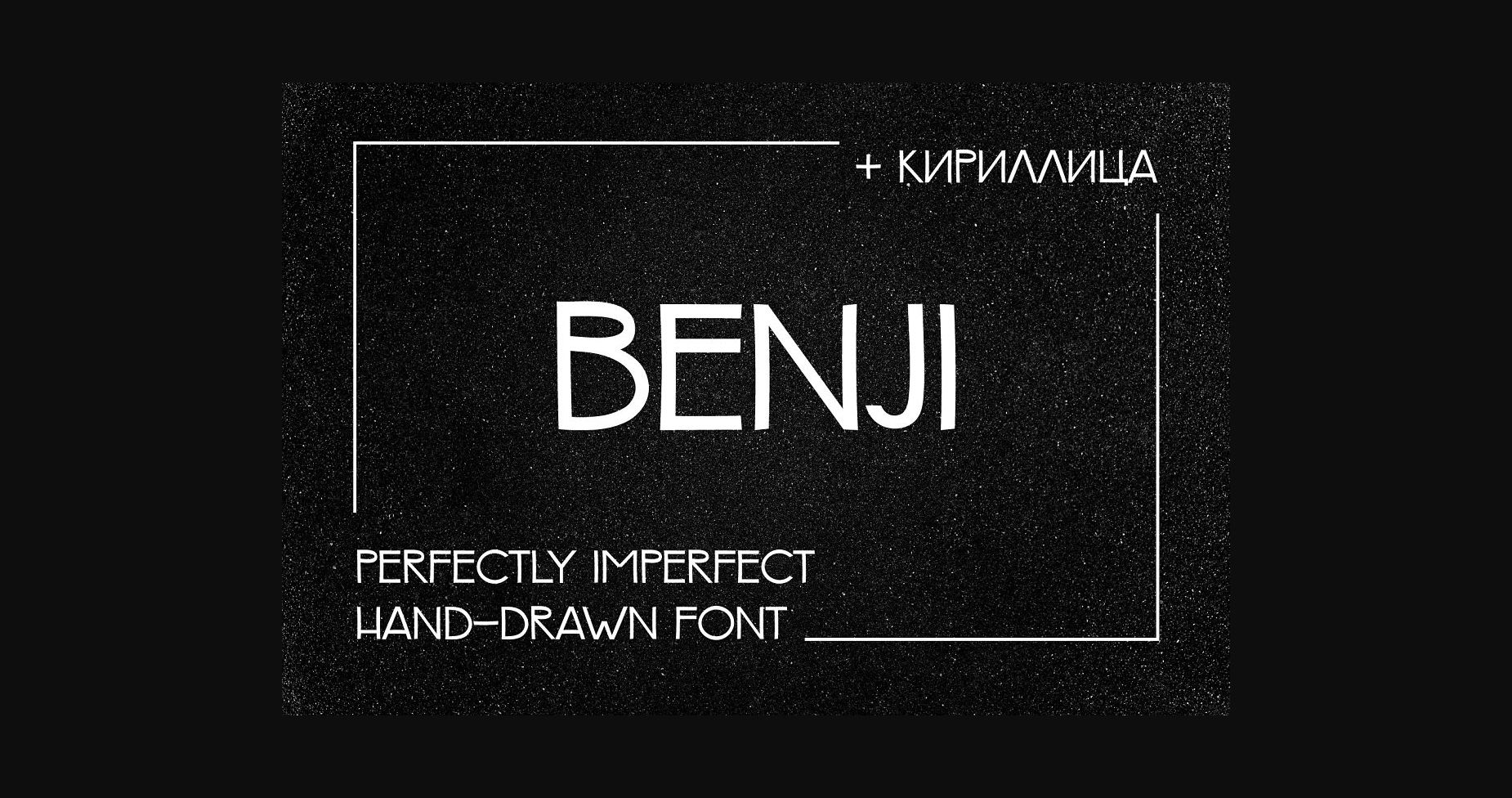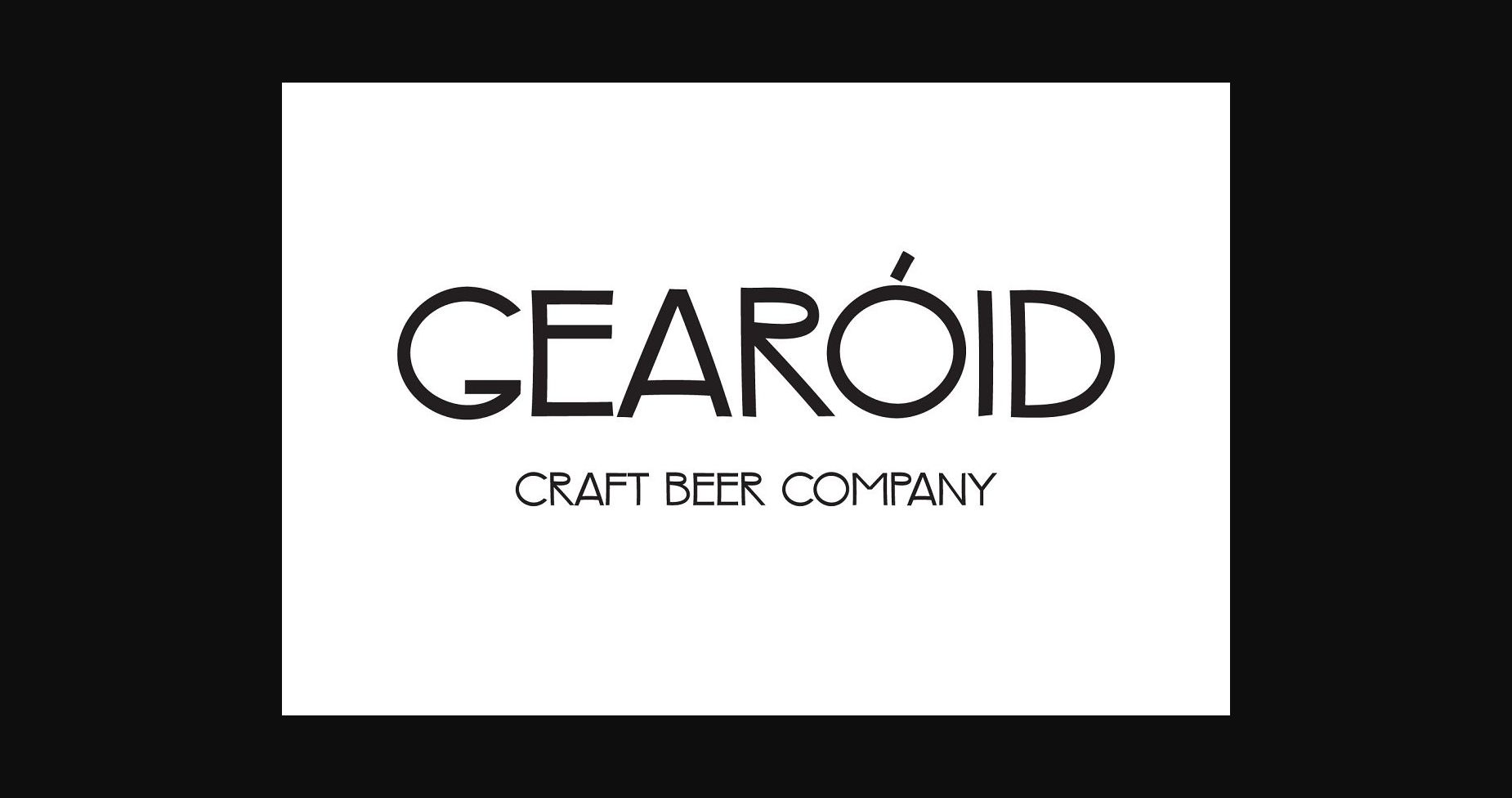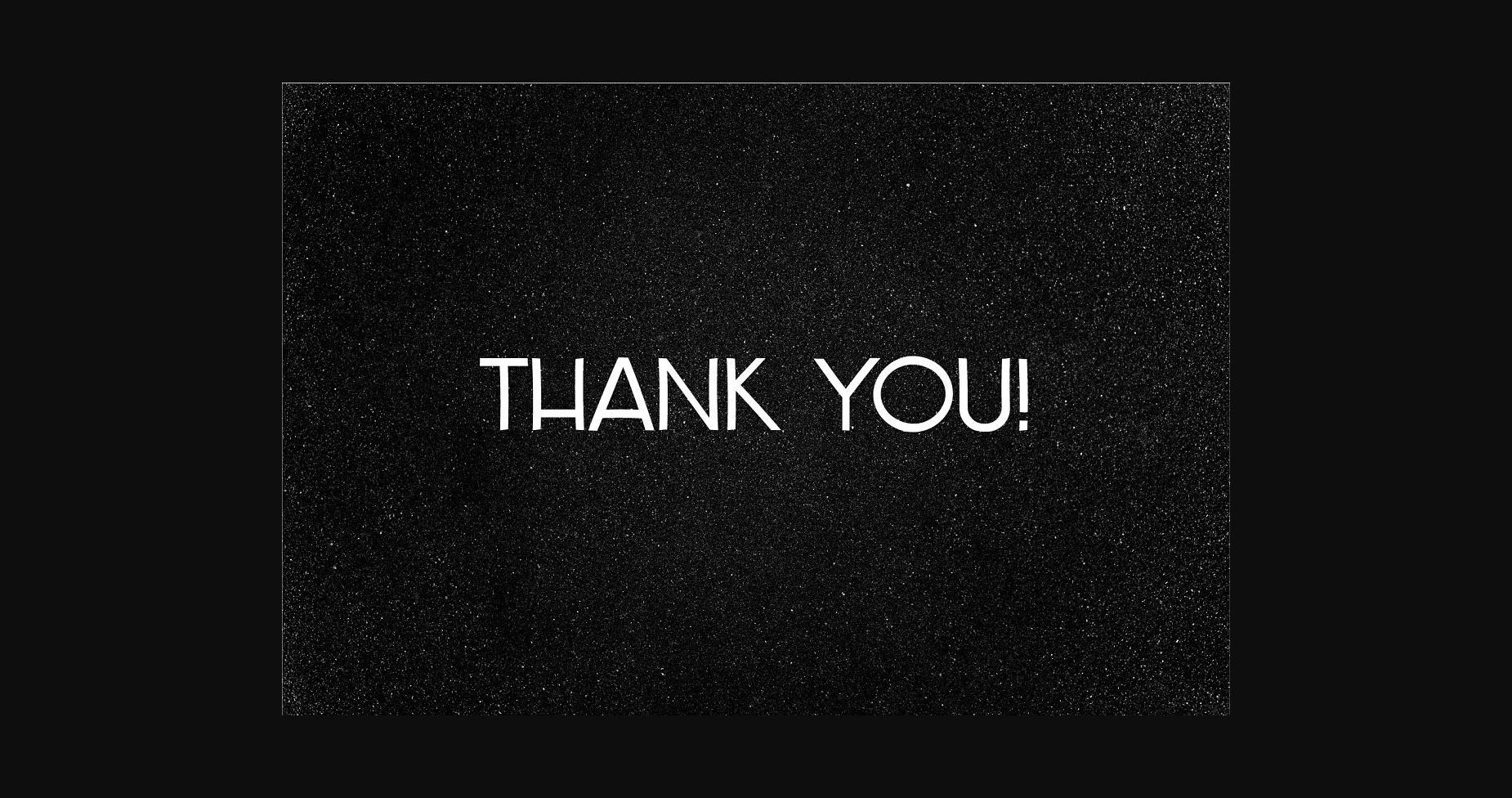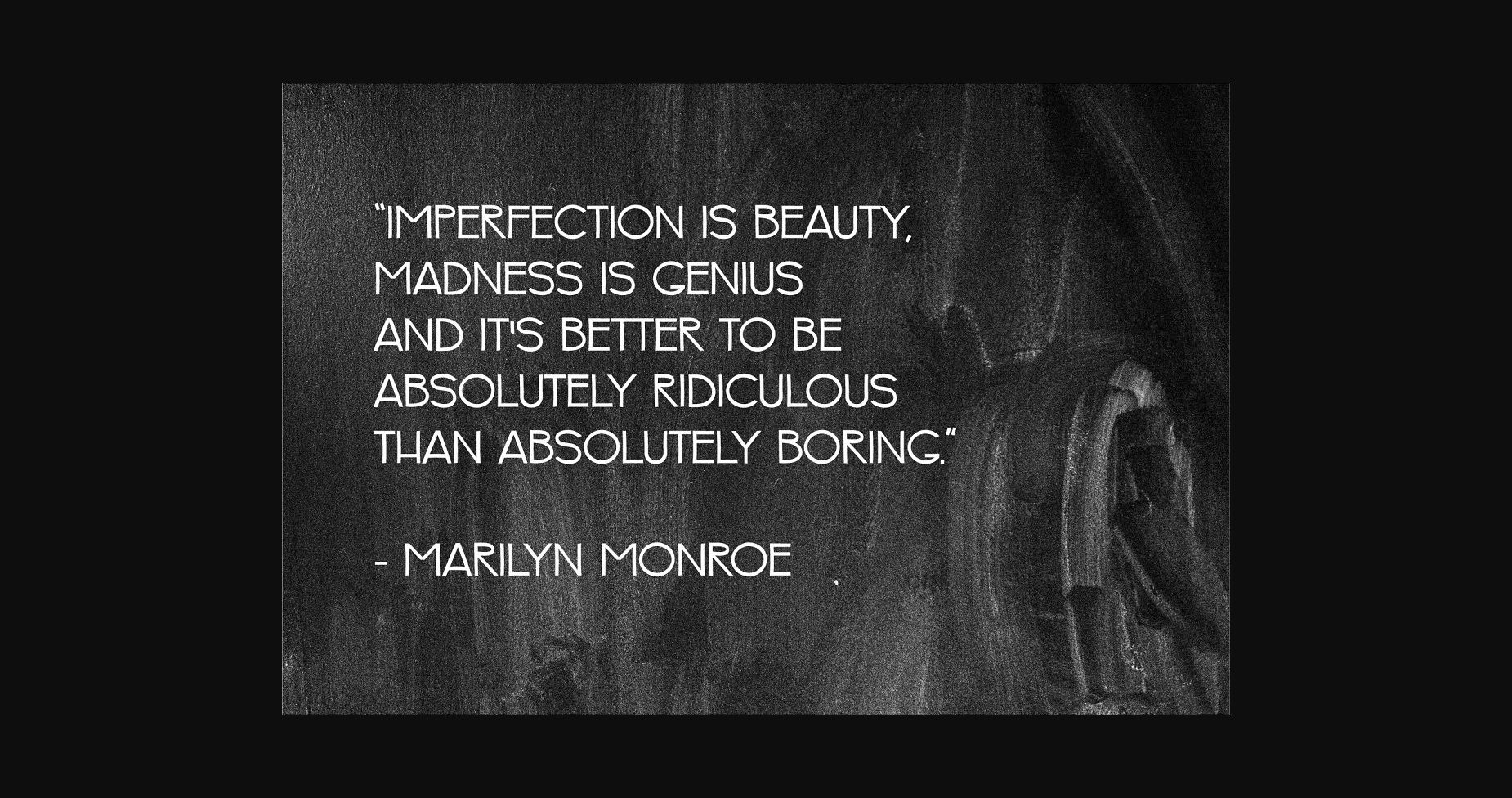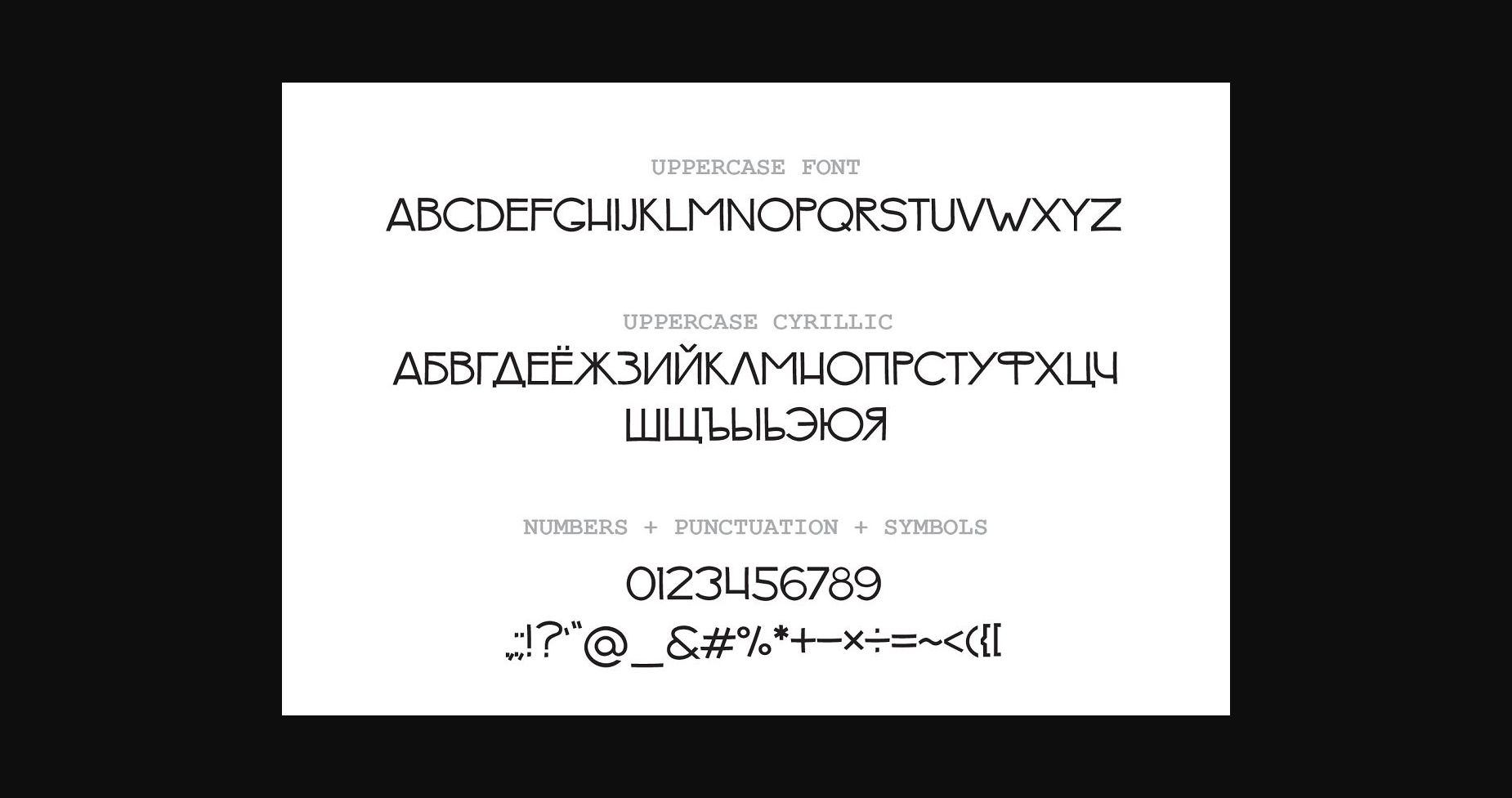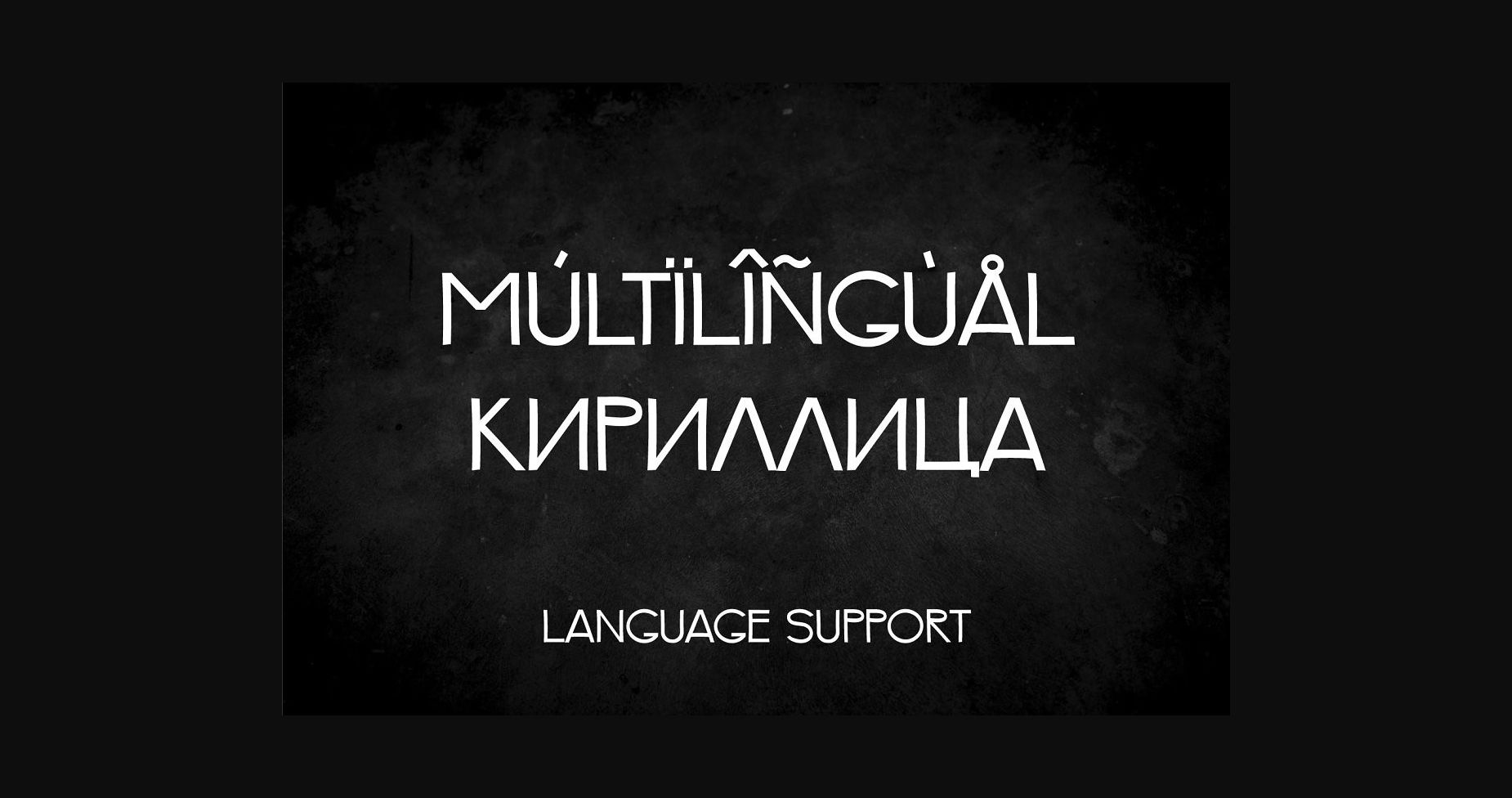
About Benji Font
Benji is a perfectly imperfect hand-drawn sans serif font, all in uppercase. It is perfect for logos, branding, cards, t-shirt prints, stationery, digital products, etc.
Enjoy your creative process, and use Benj to complement your beautiful creations!